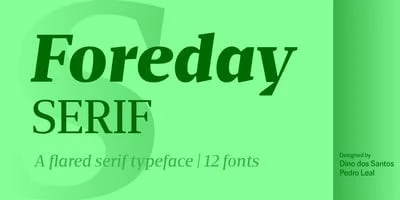
Foreday Serif Font
Foreday Serif Font is ideal for editorial and literary applications including book publishing, literary magazines, academic journals, newspaper headlines, prestigious law firm materials, scholarly publications, cultural institution branding, and traditional print media. This distinguished typeface brings timeless authority and intellectual sophistication to projects requiring classical elegance and scholarly credibility in traditional publishing environments.
What makes Foreday Serif Font exciting is its masterful revival of classical serif traditions with contemporary refinement and optical precision. The font features elegantly proportioned letterforms with graceful serifs and balanced contrast that enhance readability while maintaining dignified presence. Its scholarly character design incorporates traditional typographic principles with modern technical excellence, creating an authoritative voice that commands respect and communicates intellectual depth.
The Foreday Serif Font family encompasses comprehensive weight options from light to bold, each maintaining consistent classical proportions and serif characteristics. The professional family includes matching italics, small caps, and extensive OpenType features including old-style figures and ligatures. Extended character sets support multiple languages and specialized academic symbols essential for scholarly and legal documentation.
Publishing professionals and academic institutions consistently select Foreday Serif Font for projects requiring traditional typography and scholarly authority. Whether developing academic publications, creating legal documents, or designing cultural institution materials, this font delivers exceptional readability and intellectual credibility. Its unique combination of classical heritage and contemporary precision makes it an essential tool for publishers, editors, and scholars who demand typography that embodies tradition, authority, and timeless elegance in serious intellectual discourse and prestigious publishing applications.